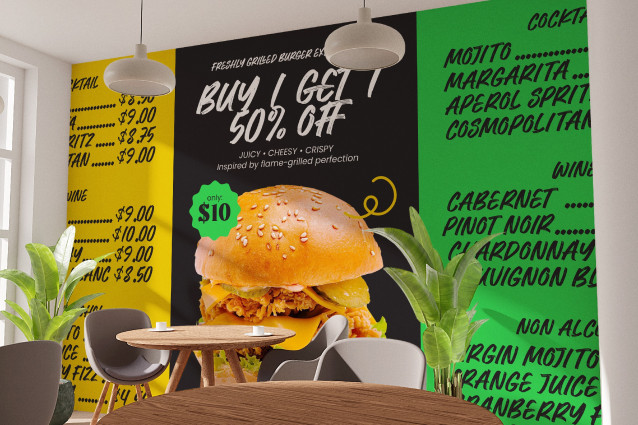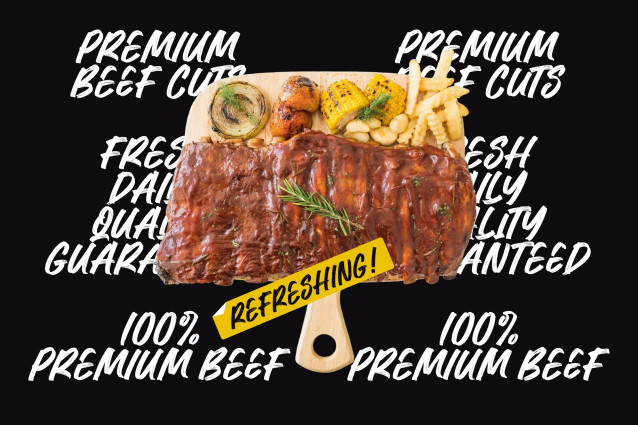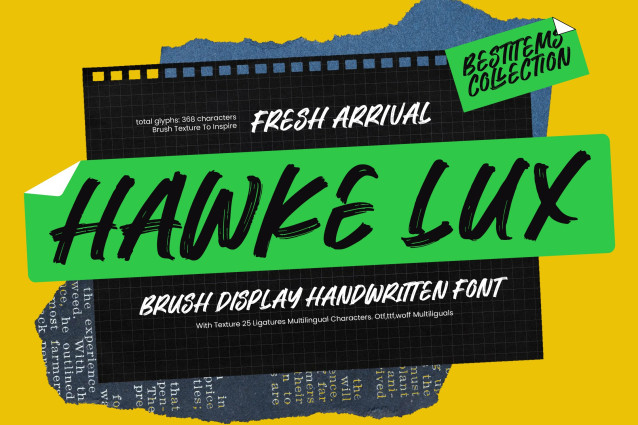
Hawke Lux Font
Hawke Lux – Brush Display Handwritten Font is meticulously crafted to provide an authentic brush texture that breathes life into digital and print media alike. By combining hand-drawn spontaneity with professional precision, this font ensures that your headlines carry a sense of urgency and personality that standard typefaces simply cannot replicate.
Experience unmatched flexibility with a tool designed to excel in the competitive global design landscape. With its extensive multilingual support, Hawke Lux – Brush Display Handwritten Font adapts seamlessly across global markets, making it incredibly versatile for international projects. Featuring 368 total glyphs and 25 custom ligatures, the font maintains its visual integrity and organic flow regardless of the language or the complexity of the typographic composition.